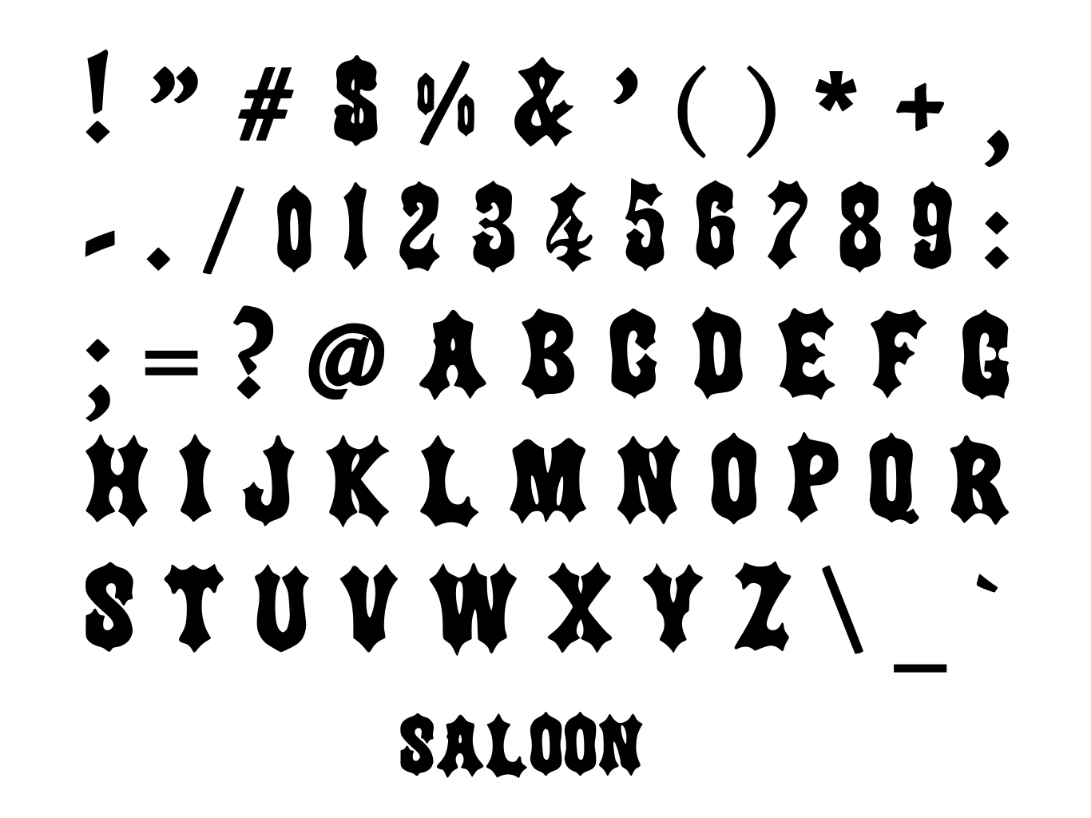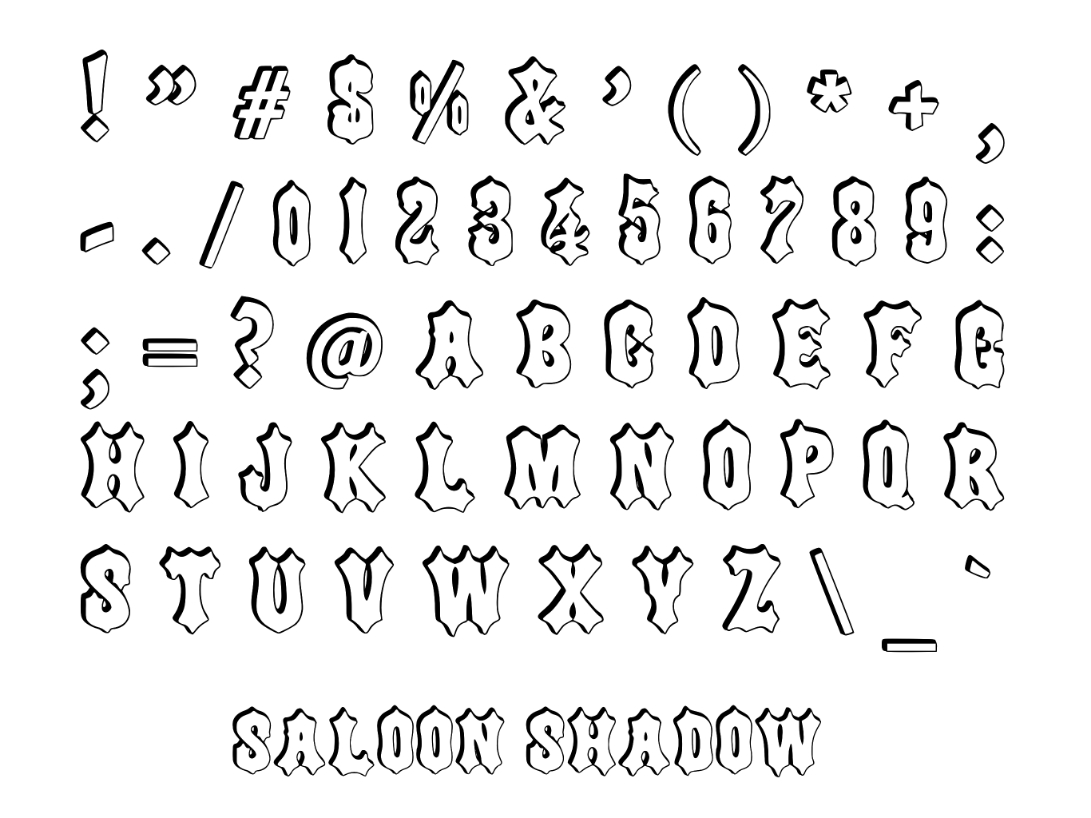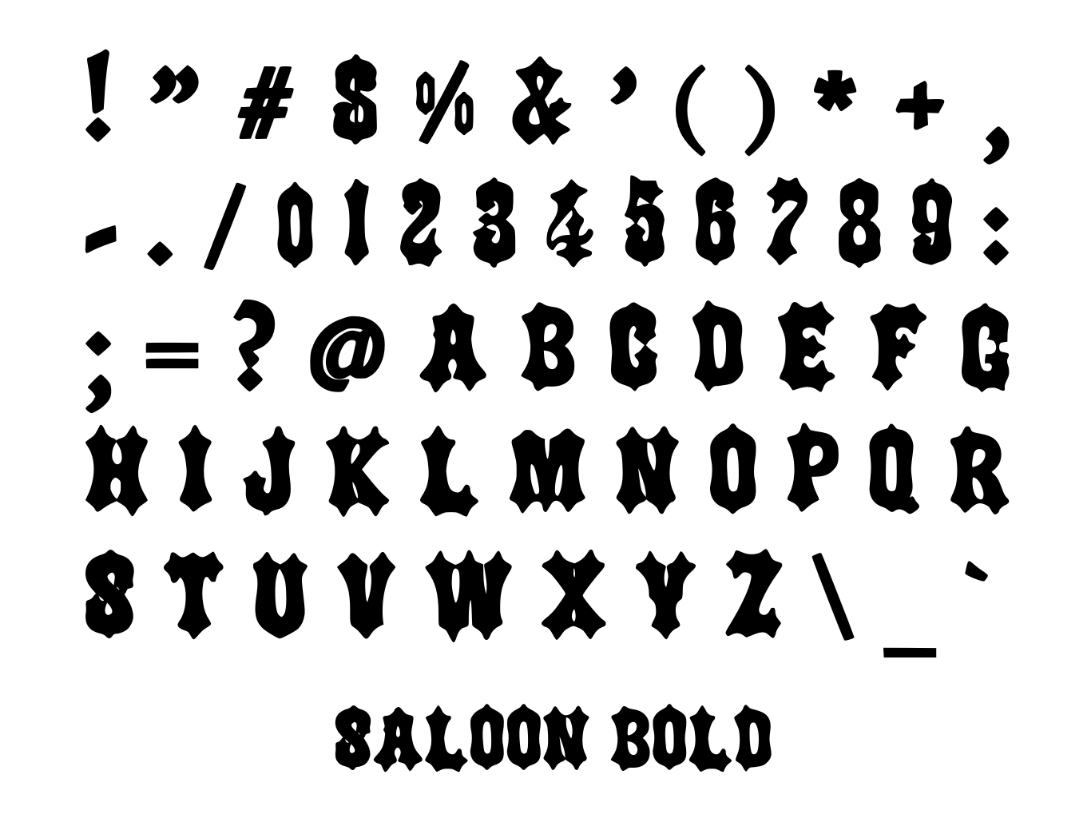
About Saloon Font
Saloon is a distinct and assertive blackletter font. It is ideal for any branding project such as logos, t-shirt printing, creative products, and more.